Small masterpieces from the age of metal type, foundry specimen booklets introduced new typefaces to the world with exquisitely arranged showings and a variety of original in-use examples. Distributed as ephemeral marketing, many are in fact bold visual essays, statements of typographic craft, and prized keepsakes containing essential information about type as it was meant to be seen.
These volumes reproduce specimens of typefaces by celebrated German-American designer Lucian Bernhard, France’s midcentury maestro Roger Excoffon, and quintessential Italian type designer Aldo Novarese.
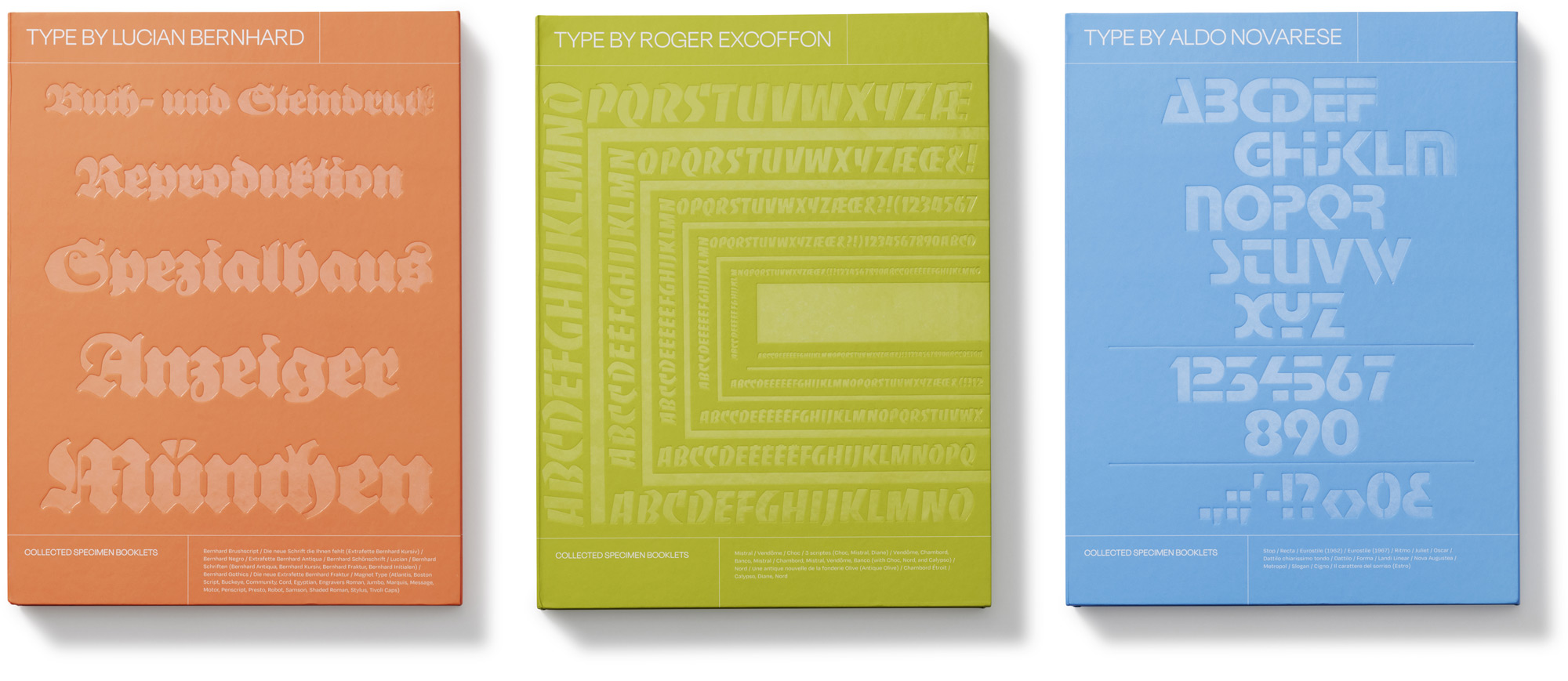
Type by Lucian Bernhard reproduces ten specimens of typefaces by celebrated German-American designer Lucian Bernhard. Drawn from across his career, the selection showcases Bernhard’s best-known designs, as well as some less familiar gems, and covers a broad range of styles, including roman, italic, script, blackletter, sans serif, and modern display. All ten complete facsimiles match their originals in size and trim. Stacked and bound together in a single volume, with an inside pocket containing a smaller booklet, they offer an unparalleled portrait of a singular career in type.
Type by Roger Excoffon features ten specimens of typefaces by midcentury maestro Roger Excoffon. Covering his entire career with Olive, the family foundry he transformed into an international trendsetter, the selection features dazzling specimens by Excoffon himself and generously includes examples of every typeface he created for the company. Bound in their original trims with an interior pocket containing smaller booklets, they offer invaluable access to the work of one design’s most unmistakable figures.
Type by Aldo Novarese contains sixteen facsimile specimens of typefaces by quintessential Italian type designer Aldo Novarese. Spanning a career of almost four decades with Nebiolo, the leading metal type foundry in Italy, the selection features many remarkable specimens designed by Novarese himself and includes a wide sampling of roman, script, sans serif, and display type. Preserved in their original trims and brought together in book form (with an inside pocket containing additional booklets), they offer a rich document of Novarese’s best work.